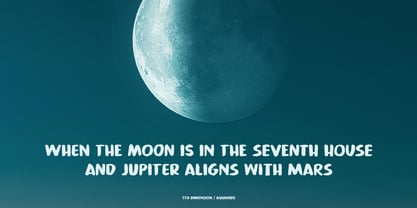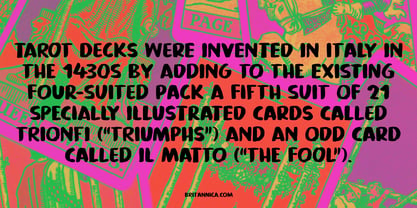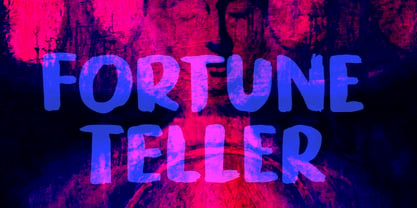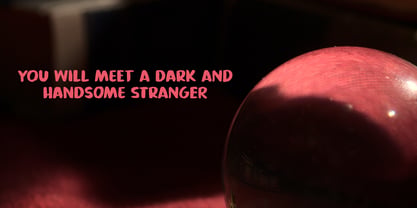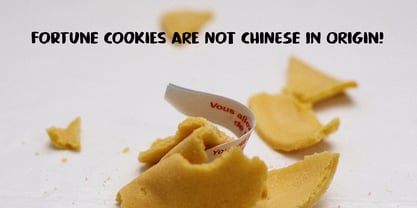
Fortune Teller Pro
by Hanoded
The Fortune Teller Pro Font Family was designed by David Kerkhoff and published by Hanoded. Fortune Teller Pro contains 2 styles and family package options. More about this family
Back in the nineties I had a deck of Tarot cards. It was part interest and part curiosity, but I also liked the look of them. My readings were just for fun; I thought it was all a joke, but when people started to return for more readings (because what I had predicted actually happened), I quit. That was way out of my comfort zone!
Fortune Teller is a nice brush font. I made it with one of my late father in law’s Chinese brushes and ink.
It comes with all diacritics and a set of alternate glyphs. If you buy this font, you will meet with a tall and handsome stranger and you will win the lottery. Guaranteed! Haha!
Designers: David Kerkhoff
Foundry: Hanoded
Hanoded is run by Dutchman David Kerkhoff. His fonts are a mishmash of styles, as he just creates whatever pops into his head. You will find a lot of brush fonts in his collection, as his favourite tools are brushes and Chinese ink, with cartoon style fonts and script fonts complementing his repertoire. Aside from making fonts, David occasionally guides tours in far-flung places, renovates his '30's house and tries reasoning with his wife and (teenage) kids. Not an easy task!